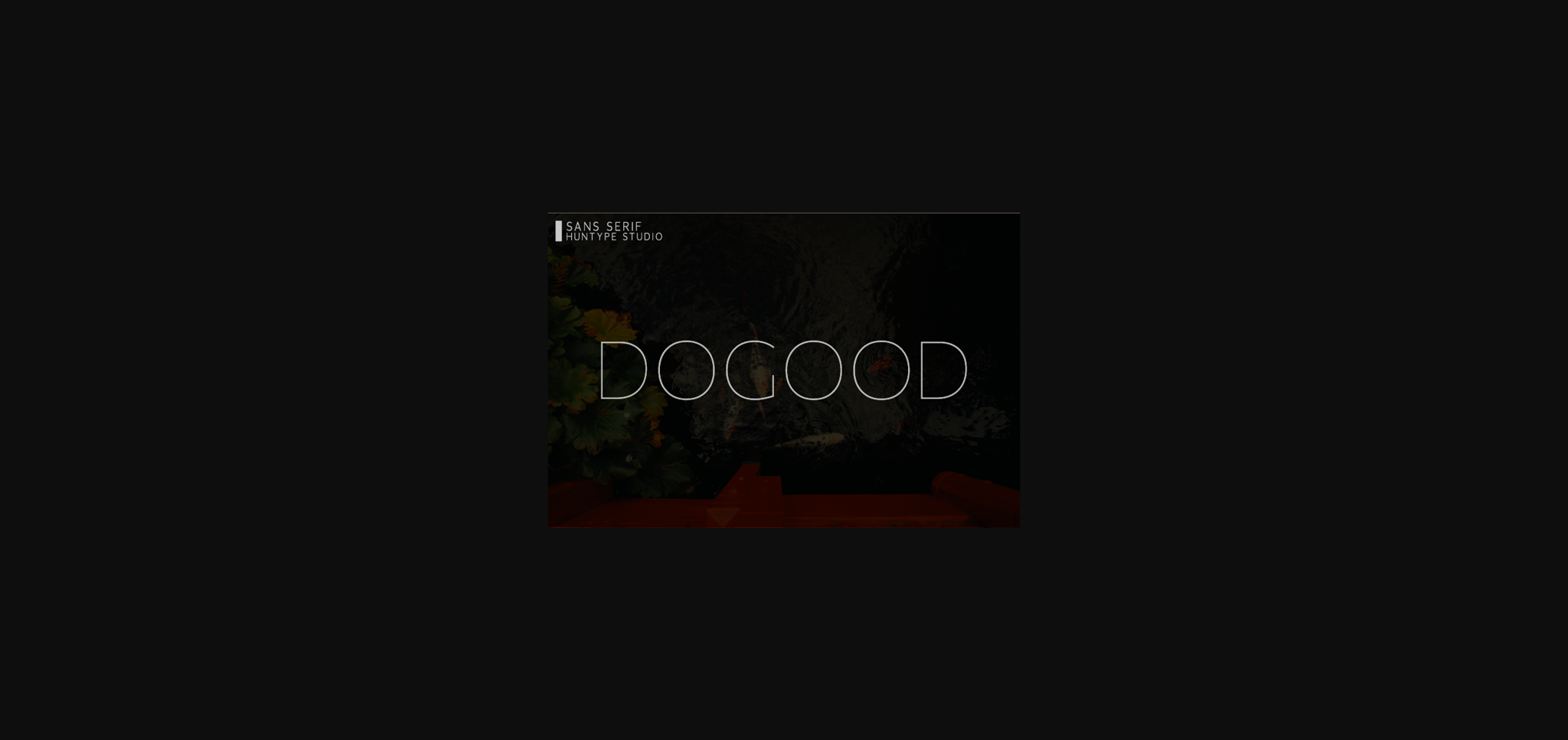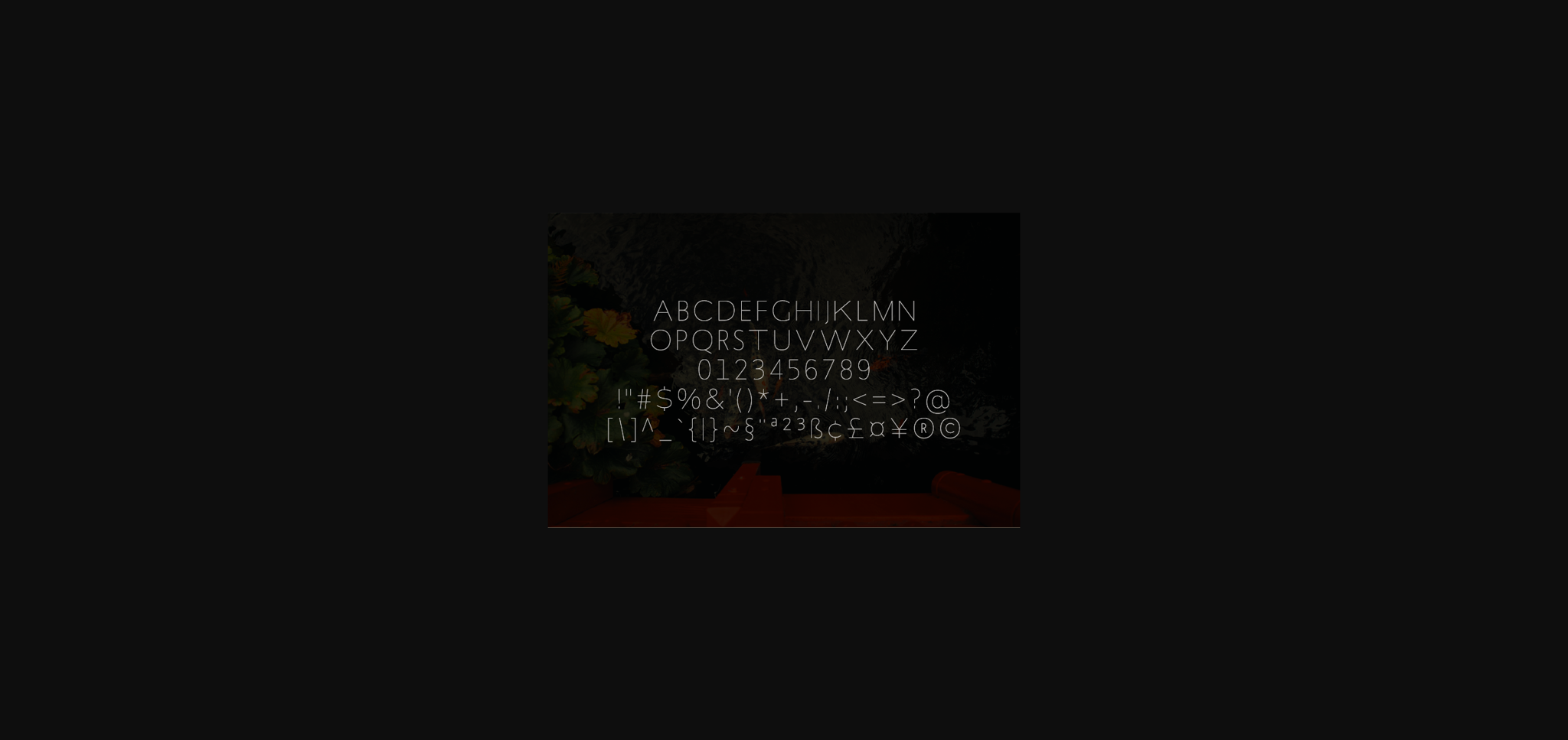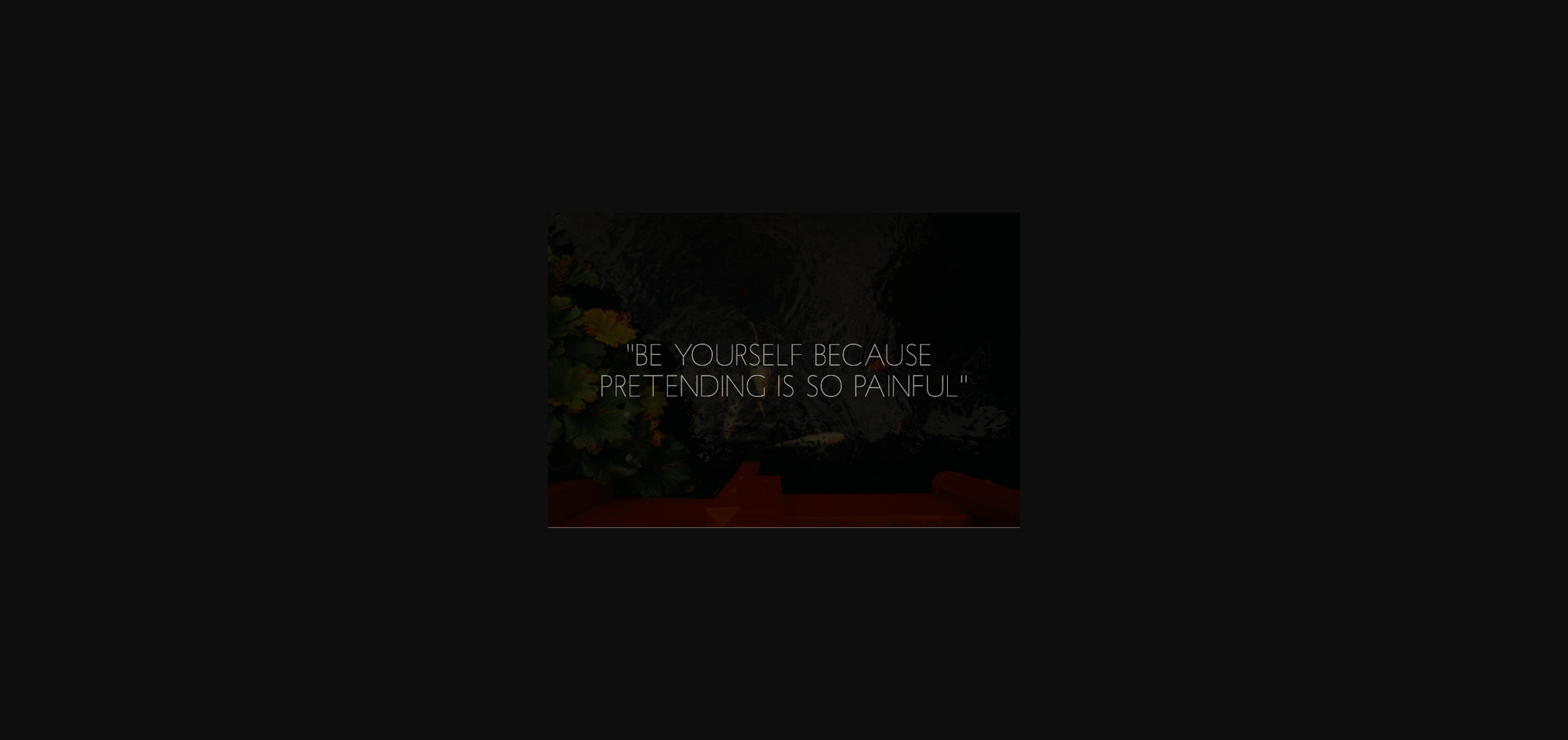
Dogood is a thin and neat sans serif font. It can be added to a large set of projects, so add it to your creative ideas and notice how it makes them stand out!